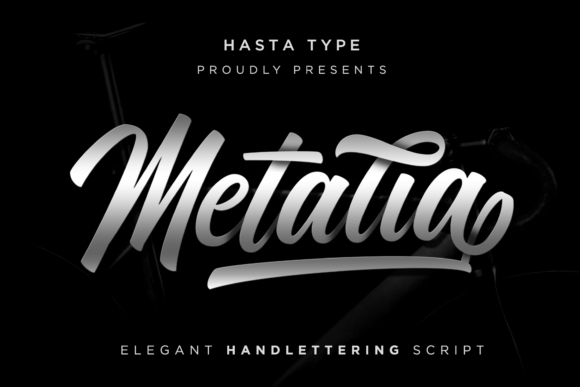
Dive into the world of Metalia Font, a mesmerizing script font family born from the creative vision of IklazStudio. This modern and classy handwritten font is more than just a collection of letters; it's an artistic expression that dances on the page, leaving a trail of elegance and style in its wake.
With Metalia Font, your designs will radiate a timeless charm that captivates and inspires. Whether you're crafting wedding invitations, branding materials, or social media posts, Metalia Font adds a touch of sophistication that elevates your message to new heights. Its carefully crafted strokes and swashes flow together effortlessly, evoking a sense of effortless grace and allure.
Step into a world of limitless creativity with Metalia Font. Unleash your imagination and watch as your words transform into works of art, leaving an unforgettable impression on all who behold them. Let Metalia Font be your creative companion, guiding you through the world of design with its enchanting allure.